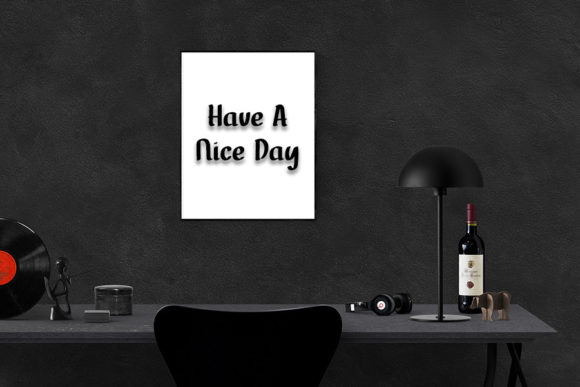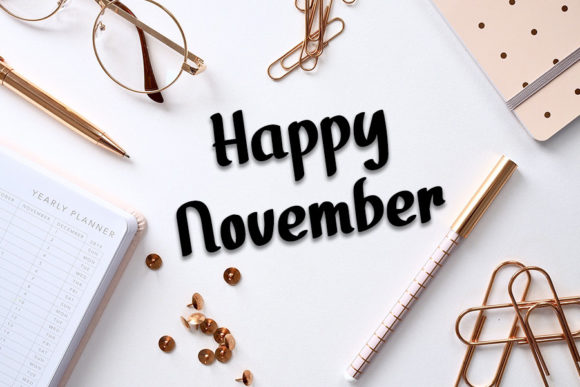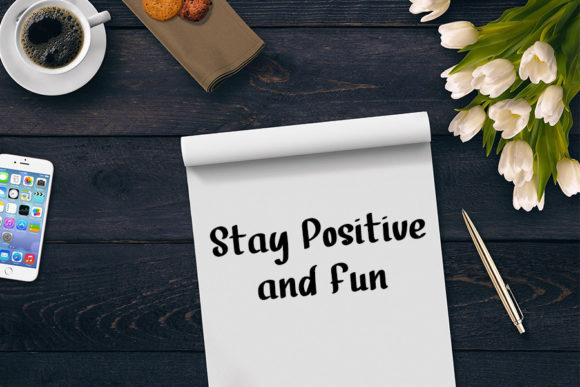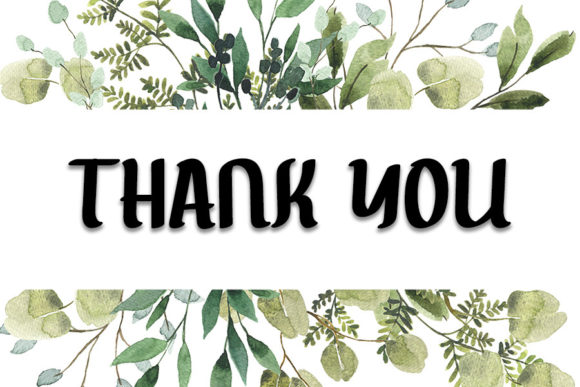
Admire Font
About Admire Font
Admire is a stylish and trendy script font. It looks stunning on wedding invitations, thank you cards, quotes, greeting cards, logos, business cards and every other design which needs a handwritten touch.